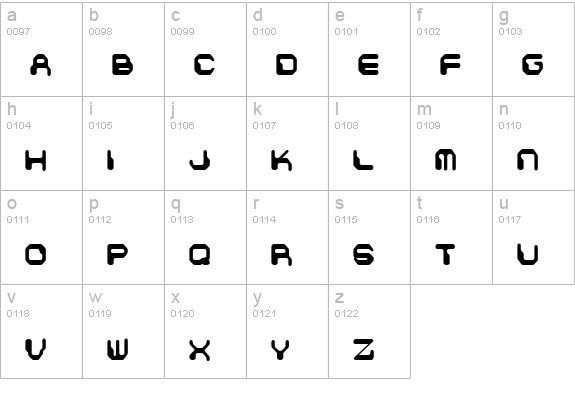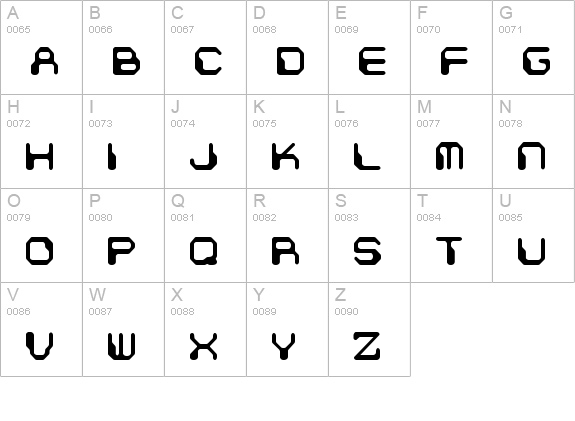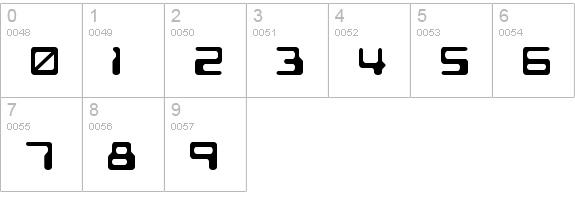
Chintzy CPU (BRK) Font Details
Introducing Chintzy CPU (BRK), a captivating and eye-catching font that will undoubtedly add a touch of uniqueness to your design projects. This font's distinctive features and playful charm make it perfect for a variety of creative endeavors. Chintzy CPU (BRK) is a free font that effortlessly combines modern aesthetics with a hint of retro nostalgia. Its bold and slightly quirky letterforms exude a sense of fun and adventure, making it ideal for designs that aim to stand out from the crowd. Whether you're working on a poster, logo, website, or any other creative project, Chintzy CPU (BRK) offers endless possibilities. Its versatility allows it to effortlessly adapt to different design styles and themes, from vintage to contemporary. This font is not only visually stunning but also highly legible, ensuring that your message gets across clearly and effectively. With its clean lines and well-defined characters, Chintzy CPU (BRK) guarantees a seamless reading experience for your audience. And the best part? Chintzy CPU (BRK) is freely available to download at FontsMarket.com. Yes, you read that right – this incredible font can be yours at no cost. FontsMarket.com provides a convenient and hassle-free platform for you to access this font and many others, allowing you to explore and experiment without breaking the bank. Download Chintzy CPU (BRK) today and let your creativity soar to new heights. With its free availability and captivating design, this font will undoubtedly become a valuable asset in your design toolkit.